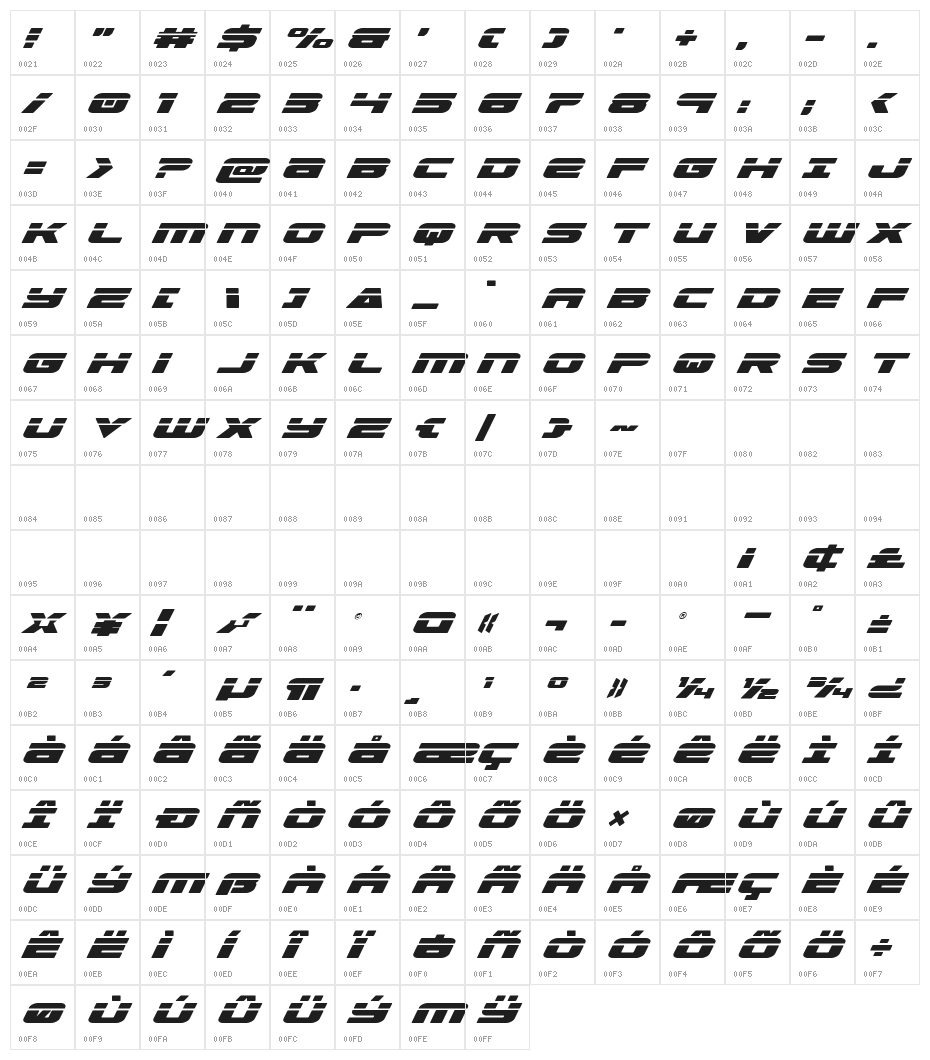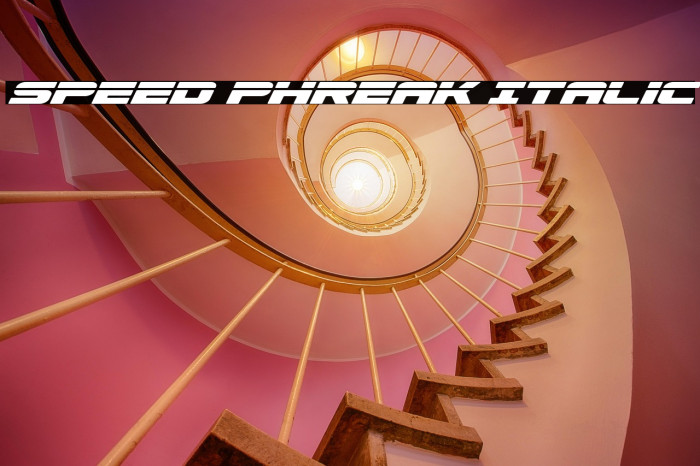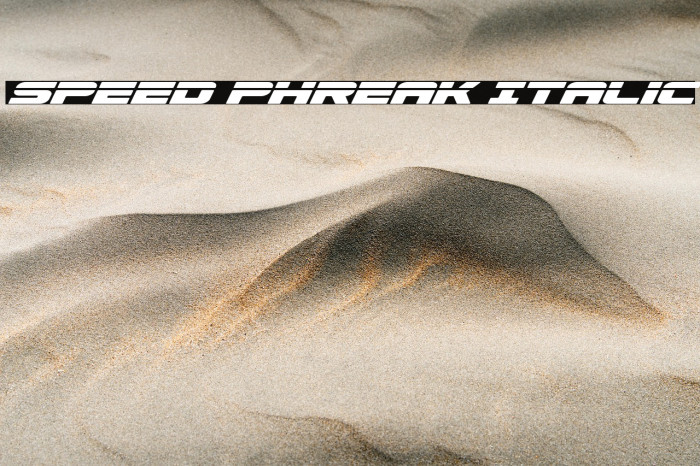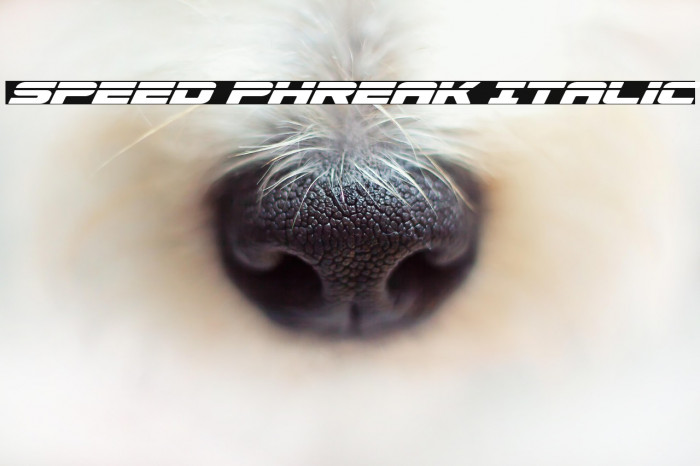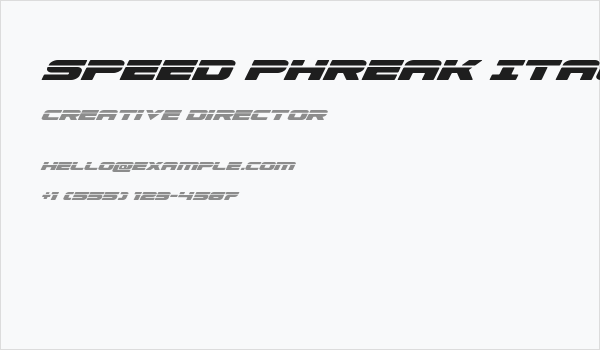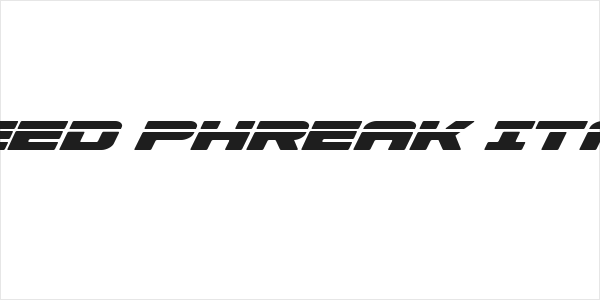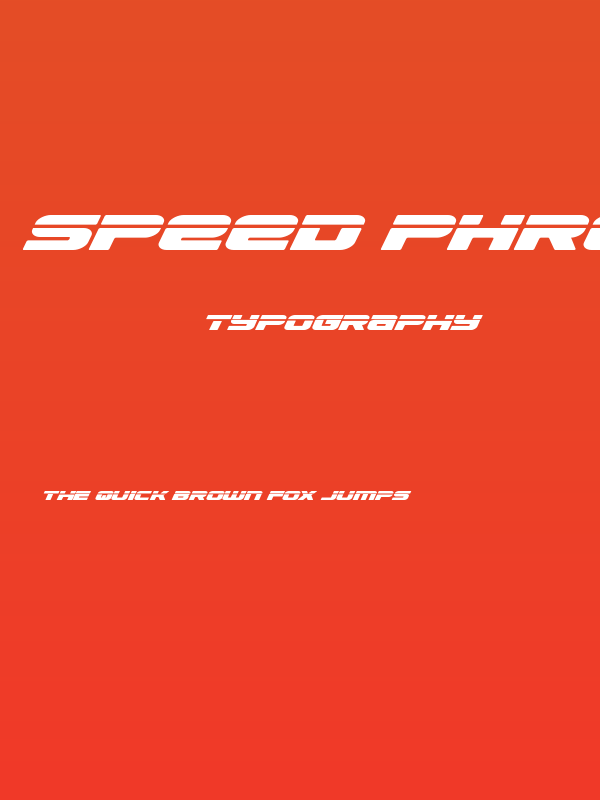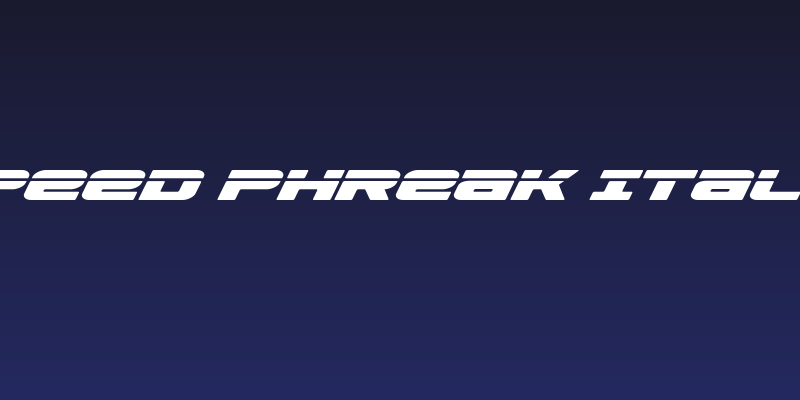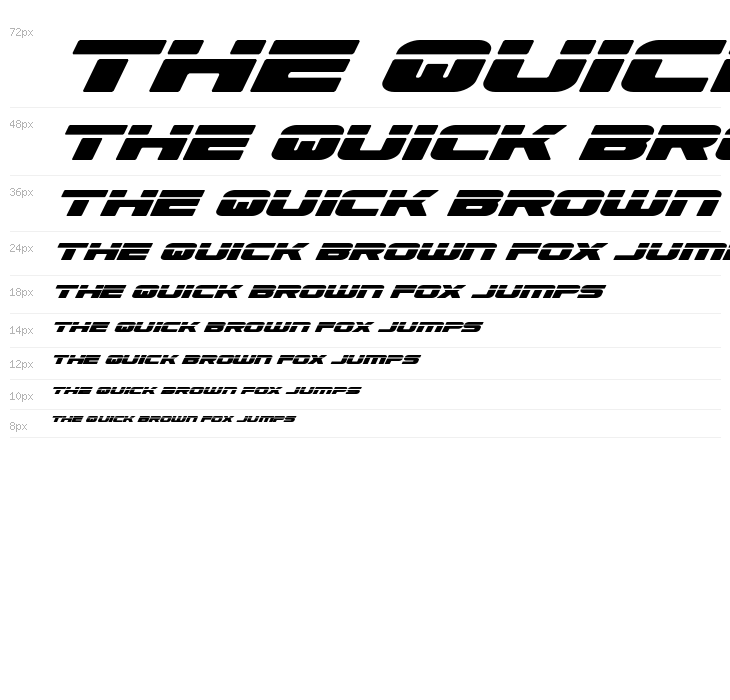
Speed Phreak Italic Font
Speed Phreak Italic Description
This font features a bold, italicized style with a futuristic and dynamic appearance. The characters are designed with sharp angles and a forward-leaning slant, giving a sense of speed and motion. The uppercase and lowercase letters maintain a consistent geometric structure, while the numbers and special characters complement the overall aesthetic. The font's design is sleek and modern, making it suitable for projects that require a contemporary and energetic look.
| Proposed Projects | Ideal for sports branding, automotive advertisements, video game titles, and tech-related projects. |